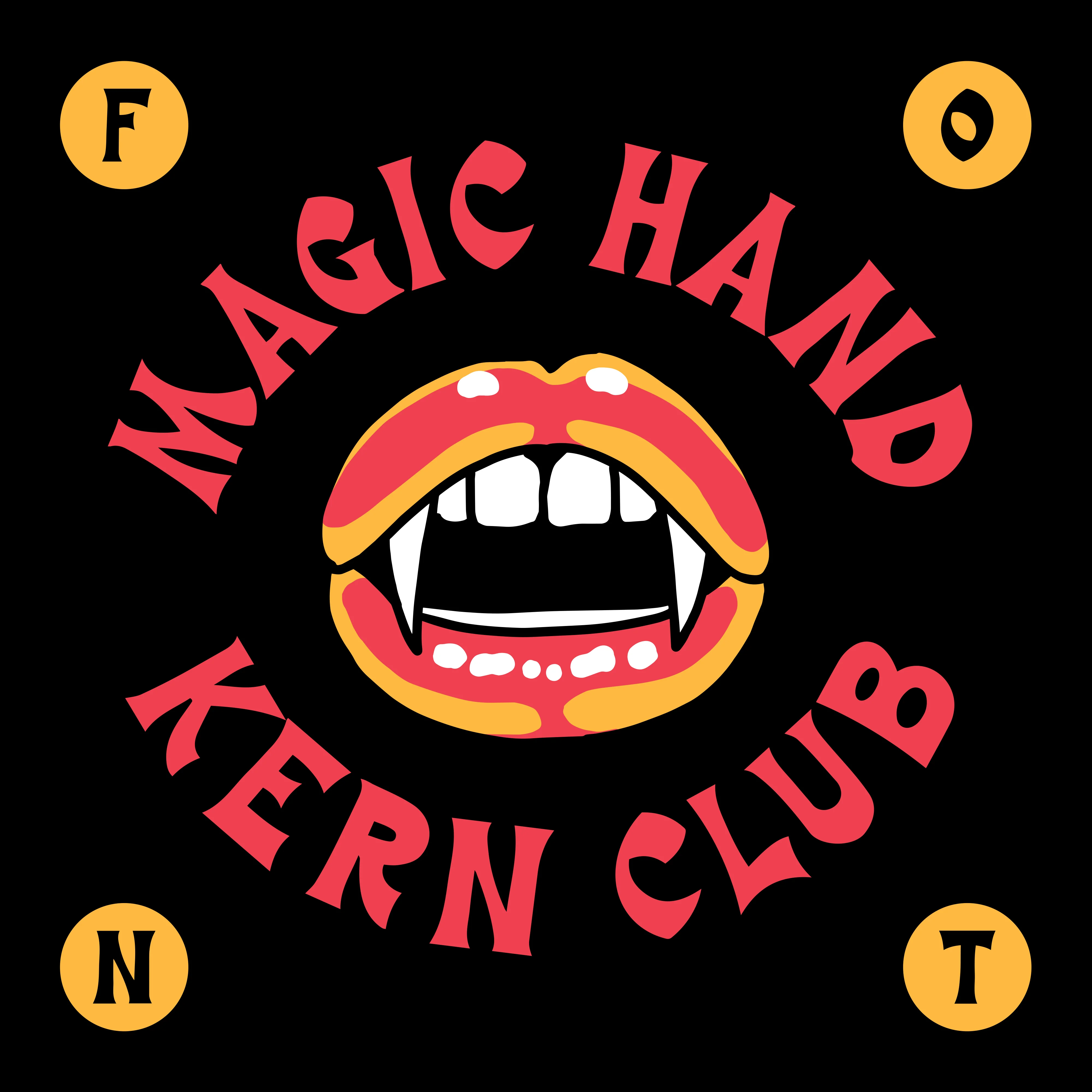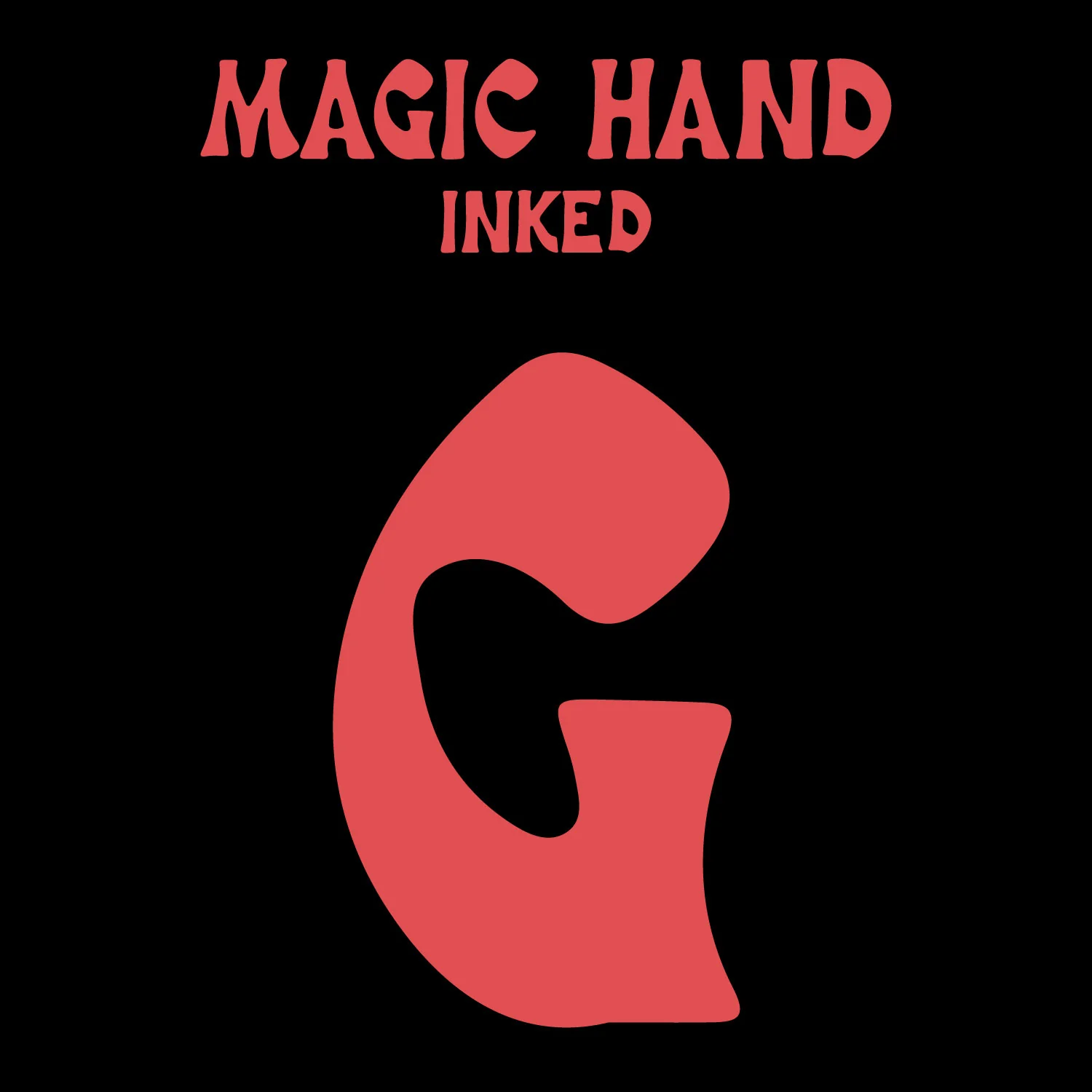
Magic Hand Font
Magic Hand Includes a sharp version, and an inked version
- Uppercase Character Set A-Z
- Inked Uppercase Character Set A-Z
- Numerals & Simple Punctuation